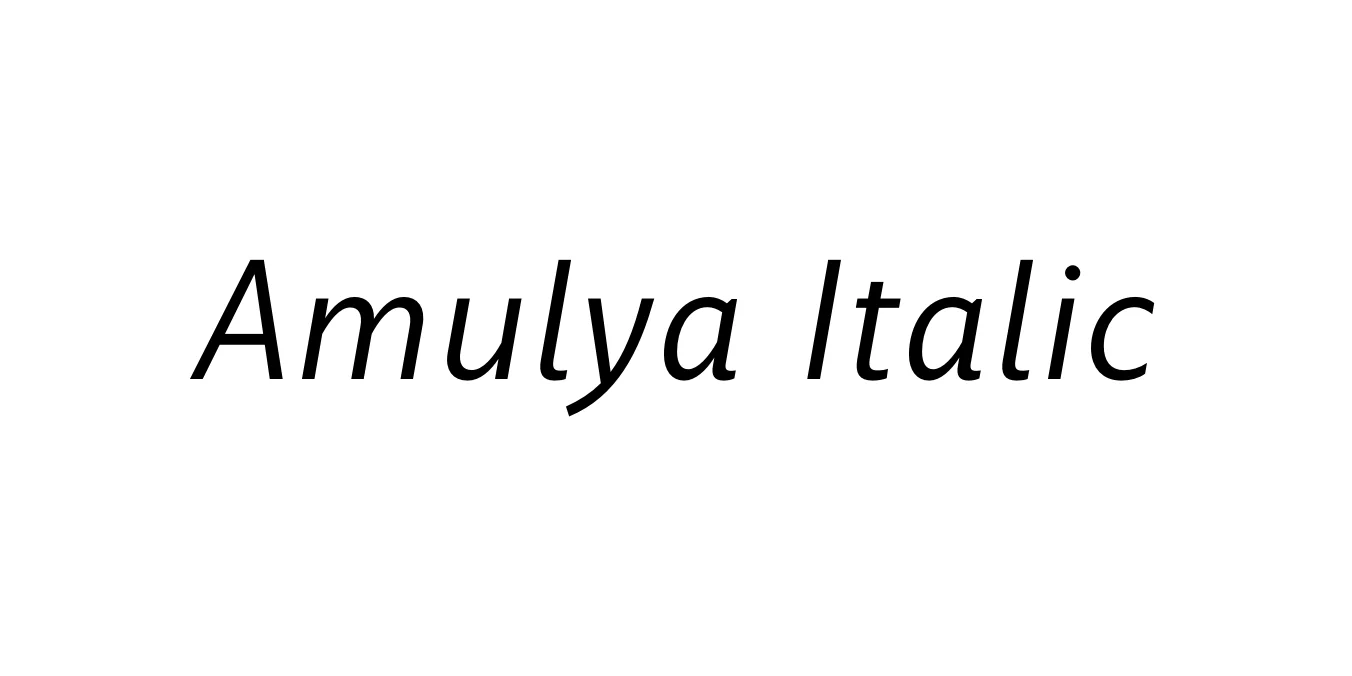
Amulya Italic
Designed by Rajesh Rajput
| Font Name | Amulya |
| Designer | Rajesh Rajput |
Amulya Italic is a refined and contemporary sans-serif typeface that combines geometric precision with a touch of organic warmth. As part of the broader Amulya family designed by Rajesh Rajput for the Indian Type Foundry, this italic variant offers a sophisticated slant that enhances emphasis without losing the font's characteristic legibility. Its clean strokes and balanced proportions make it an excellent choice for high-end digital environments and modern print materials.
The design philosophy behind Amulya Italic focuses on versatility and professional appeal. It features subtle optical corrections to ensure that the italicized characters maintain visual consistency with their upright counterparts. This makes the font particularly effective for editorial design, corporate communications, and minimalist branding where a clear, authoritative, yet approachable voice is required.
Amulya Italic Best Uses
Perfect for pull quotes, captions, and adding emphasis in long-form magazine layouts.
Ideal for sleek professional logos and sophisticated corporate identity systems.
Excellent for modern website headings and UI elements that require a clean aesthetic.
Well-suited for fashion, tech, and lifestyle advertisements where style is paramount.